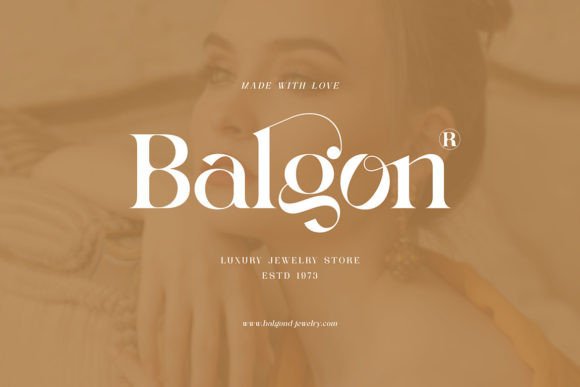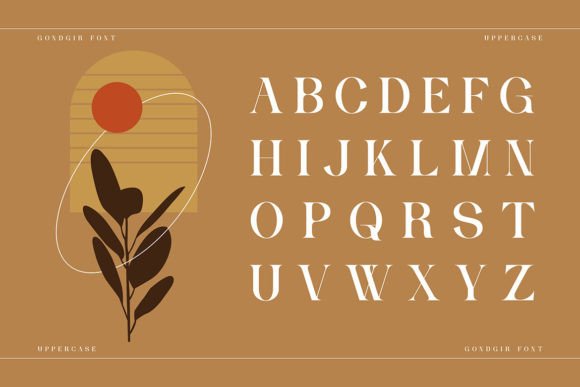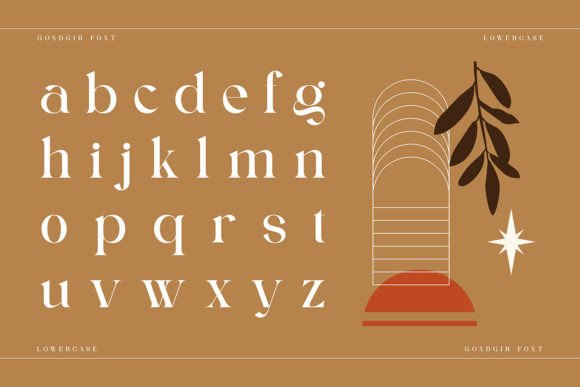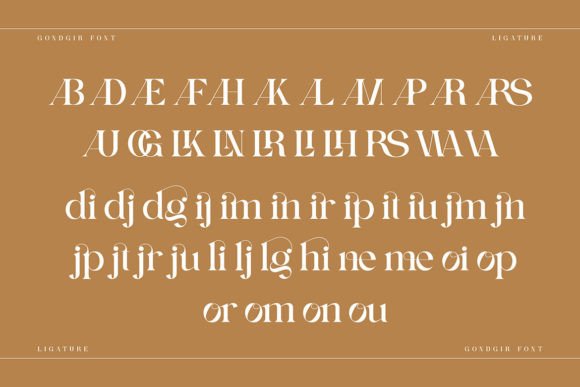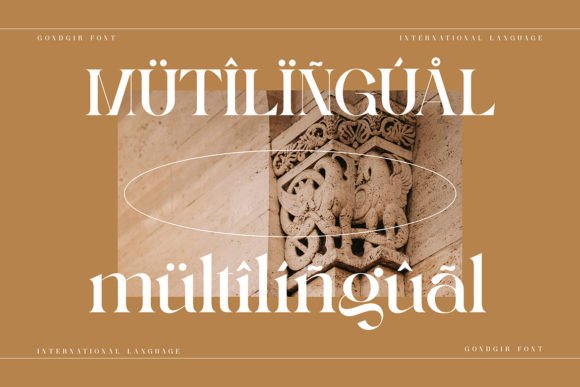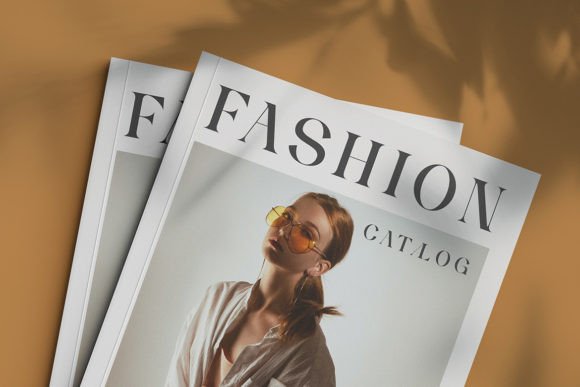
Gondgir Font: Elevate Your Designs with Elegance and Sophistication
In the world of typography, fonts play a crucial role in conveying the tone and personality of a design. For designers and crafters seeking to add a touch of elegance and sophistication to their work, the Gondgir font is an excellent choice. This trendy and stylish serif font has been gaining popularity for its refined yet modern look, making it an ideal selection for various design projects.
The Unique Characteristics of Gondgir Font
One of the standout features of the Gondgir font is its sharp contrast between thick and thin strokes. This distinctive characteristic creates a sense of refinement and luxury, making it perfect for designs that require a high level of sophistication. The font’s unique letterforms also have an alluring personality that sets it apart from other serif fonts.
Whether you’re working on a branding project, packaging design, or editorial layout, the Gondgir font is sure to make a statement. Its elegant and refined appearance can add a touch of class to any design, making it an excellent choice for designers who want to create a lasting impression.
PUA Encoding for Effortless Access
Another significant advantage of the Gondgir font is its PUA (Private Use Area) encoding. This means that you can access all glyphs and swashes effortlessly, making it easy to incorporate into your designs. With PUA encoding, you can unlock the full potential of the font and explore its various features without any hassle.
Why Designers and Crafters Love Gondgir Font
So, what makes the Gondgir font a favorite among designers and crafters? Here are a few reasons:
- Elegance and Sophistication: The Gondgir font exudes elegance and sophistication, making it perfect for designs that require a high level of refinement.
- Unique Letterforms: The font’s unique letterforms have an alluring personality that adds a touch of class to any design.
- Versatility: The Gondgir font is suitable for various design projects, including branding, packaging, editorials, and more.
- Easy to Use: With PUA encoding, accessing glyphs and swashes is effortless, making it easy to incorporate into your designs.
Tips for Using Gondgir Font Effectively
To get the most out of the Gondgir font, here are some tips for using it effectively:
- Pair it with a Sans-Serif Font: Combining the Gondgir font with a sans-serif font can create a beautiful contrast that adds visual interest to your design.
- Experiment with Font Sizes: Playing with font sizes can help you create a hierarchy of information and add depth to your design.
- Use Swashes and Glyphs: Take advantage of the font’s PUA encoding and experiment with swashes and glyphs to add a personal touch to your design.
In conclusion, the Gondgir font is an excellent choice for designers and crafters seeking to add a touch of elegance and sophistication to their work. Its unique characteristics, versatility, and ease of use make it an ideal selection for various design projects. With its PUA encoding, you can unlock the full potential of the font and explore its various features without any hassle. Whether you’re working on a branding project, packaging design, or editorial layout, the Gondgir font is sure to make a statement.